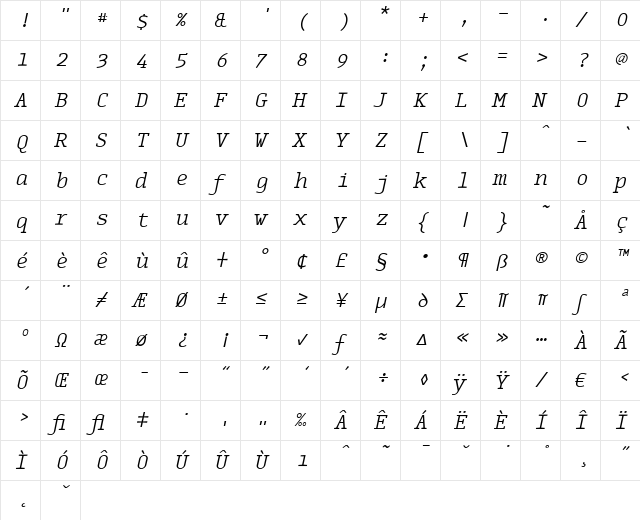
MonoxSerifLightItalic Regular Font Preview
| Foundry | Dino dos Santos _ DSType |
Design Context for MonoxSerifLightItalic Typeface
MonoxSerifLightItalic brings the precise, column-aligned rhythm of monospaced typography to designs that value technical clarity and systematic order. The slanted form adds forward momentum and visual energy. Its slender proportions lend an understated elegance to any composition.